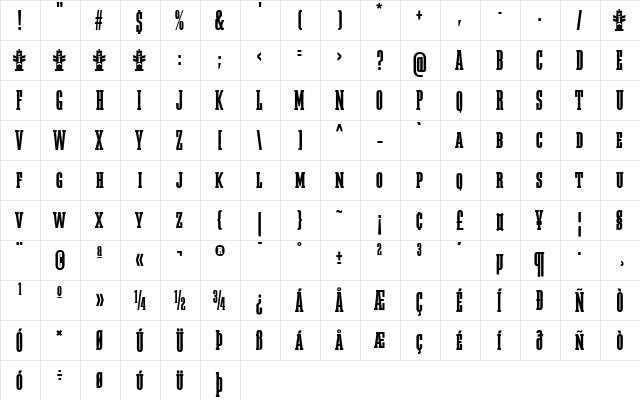
Megalito Slab SC ExtCond Regular
| Foundry | deFharo |
| Designer | Fernando Haro |
Design Context for Megalito Slab SC ExtCond Typeface
Megalito Slab SC ExtCond features prominent, blocky serifs that give it a confident, grounded presence — equally at home in editorial settings and bold branding work. The condensed width makes it efficient for tight spaces without sacrificing legibility.
Works well in editorial design, news publishing, impactful branding, and poster typography.
Pro Tip: Try Megalito Slab SC ExtCond set tight in headlines for a classic editorial feel. Its slab serifs create strong horizontal rhythm that anchors a page layout.